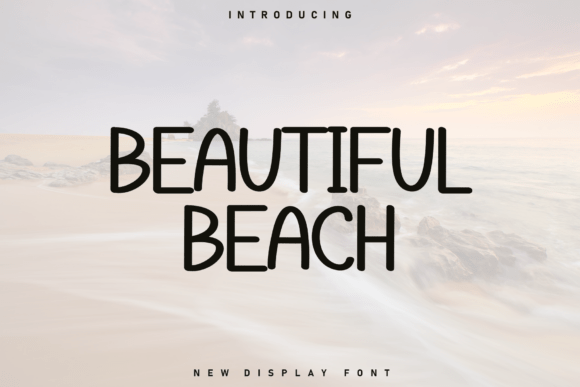
Introducing Beautiful Beach Font: The Perfect Blend of Elegance and Casualness
Are you looking for a font that exudes a sense of luxury and elegance, yet still has a relaxed and casual vibe? Look no further than the Beautiful Beach Font. This stunning handwritten font is designed to resemble marker-drawn text, giving it a unique and sporty feel that’s perfect for a wide range of design applications.
What is Beautiful Beach Font?
Beautiful Beach is a carefully crafted handwritten font that looks like it was drawn with a marker. Its relaxed and sporty feel makes it an ideal choice for designers who want to add a touch of elegance and sophistication to their work, without sacrificing a casual and laid-back vibe.
Key Features of Beautiful Beach Font
- Handwritten with a marker feel: The font’s unique, hand-drawn texture gives it a personal and organic feel that’s perfect for designs that require a human touch.
- Relaxed and sporty feel: The font’s casual, laid-back vibe makes it perfect for designs that require a sporty or beachy feel.
- Luxurious and elegant: Despite its casual feel, the font still exudes a sense of luxury and sophistication, making it perfect for high-end designs.
- Versatile: The font is suitable for a wide range of design applications, including branding, logos, wedding supplies, greeting cards, fashion, lookbooks, and marketing promotions.
Use Cases for Beautiful Beach Font
The Beautiful Beach Font is incredibly versatile, and can be used in a variety of design applications. Here are some ideas to get you started:
Branding and Logos
The font’s unique, hand-drawn texture makes it perfect for branding and logos that require a personal touch. Use it to create a custom logo that stands out from the crowd and reflects your brand’s personality.
Wedding Supplies
The font’s elegant and sophisticated feel makes it perfect for wedding supplies, such as invitations, save-the-dates, and wedding programs.
Greeting Cards
The font’s casual and laid-back vibe makes it perfect for greeting cards that require a personal touch. Use it to create custom birthday cards, thank-you cards, and more.
Fashion and Lookbooks
The font’s luxurious and elegant feel makes it perfect for fashion designs, such as lookbooks, catalogs, and advertising campaigns.
Marketing Promotions
The font’s sporty and casual feel makes it perfect for marketing promotions, such as flyers, brochures, and social media graphics.
Benefits of Using Beautiful Beach Font
So why choose the Beautiful Beach Font for your design project? Here are just a few benefits of using this stunning font:
Unique and Eye-Catching
The font’s unique, hand-drawn texture makes it stand out from the crowd and grabs the viewer’s attention.
Versatile
The font is suitable for a wide range of design applications, making it a great addition to any designer’s toolkit.
Elegant and Sophisticated
The font’s luxurious and elegant feel makes it perfect for high-end designs that require a touch of sophistication.
Casual and Laid-Back
The font’s casual and laid-back vibe makes it perfect for designs that require a sporty or beachy feel.
Tips for Using Beautiful Beach Font
Here are a few tips for using the Beautiful Beach Font in your design project:
Pair it with a Sans-Serif Font
Pair the Beautiful Beach Font with a sans-serif font to create a striking contrast and add visual interest to your design.
Use it in Large Sizes
The font’s unique texture and hand-drawn feel are best showcased in large sizes, making it perfect for headlines and titles.
Experiment with Colors
The font’s elegant and sophisticated feel makes it perfect for use with a range of colors, from bold and bright to soft and pastel.
The Beautiful Beach Font is a stunning handwritten font that offers the perfect blend of elegance and casualness. Its unique, hand-drawn texture and relaxed and sporty feel make it perfect for a wide range of design applications, from branding and logos to wedding supplies and marketing promotions. With its versatility, elegance, and sophistication, this font is sure to become a favorite in any designer’s toolkit.